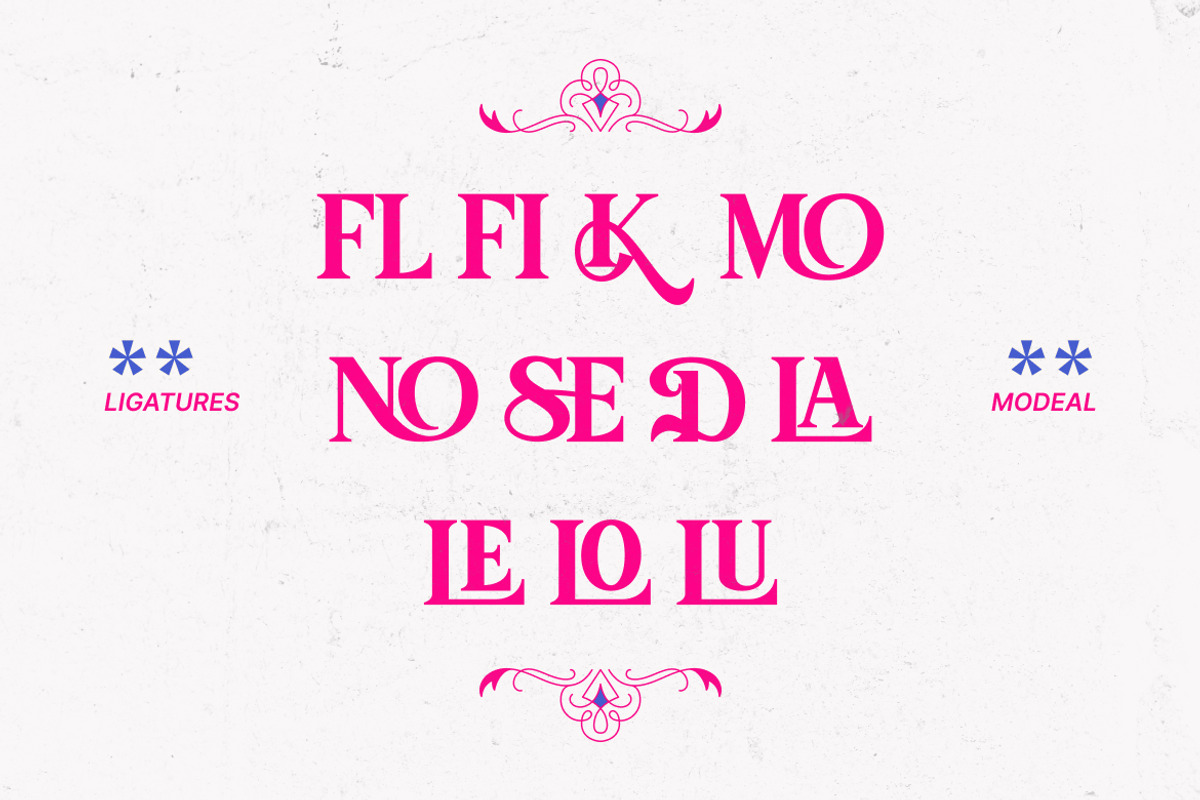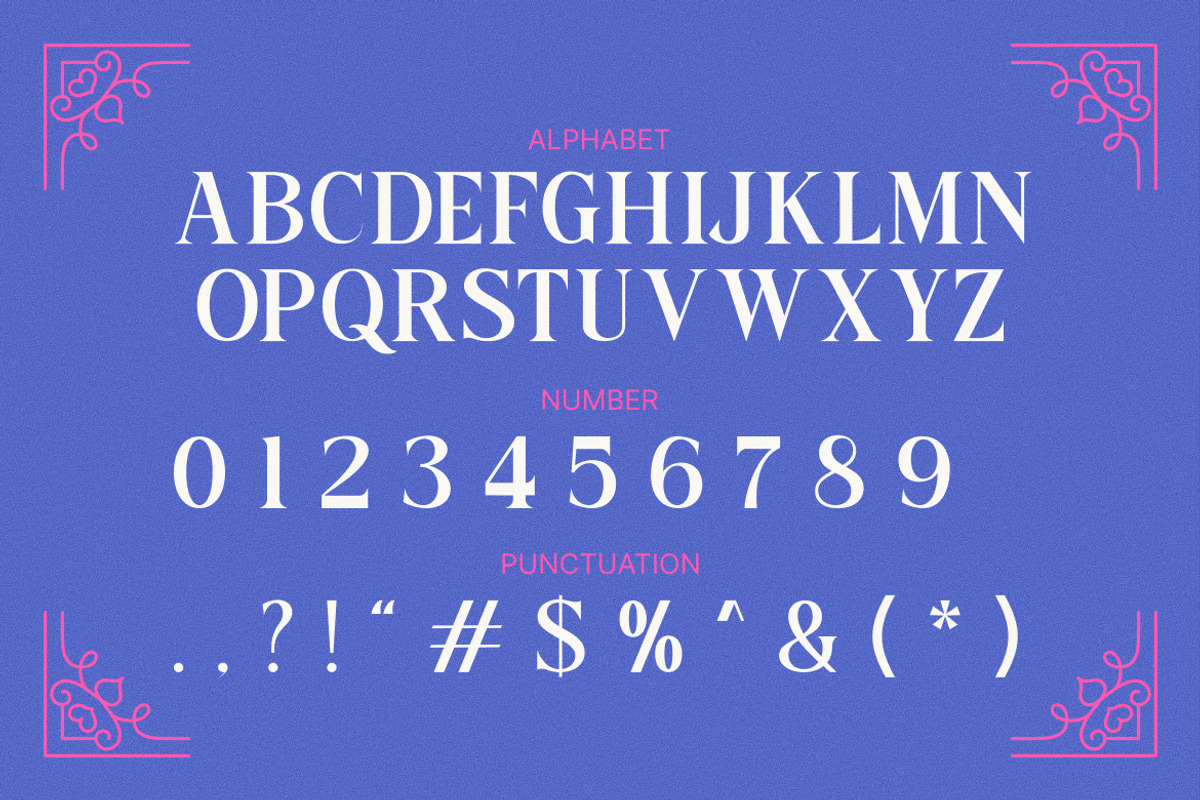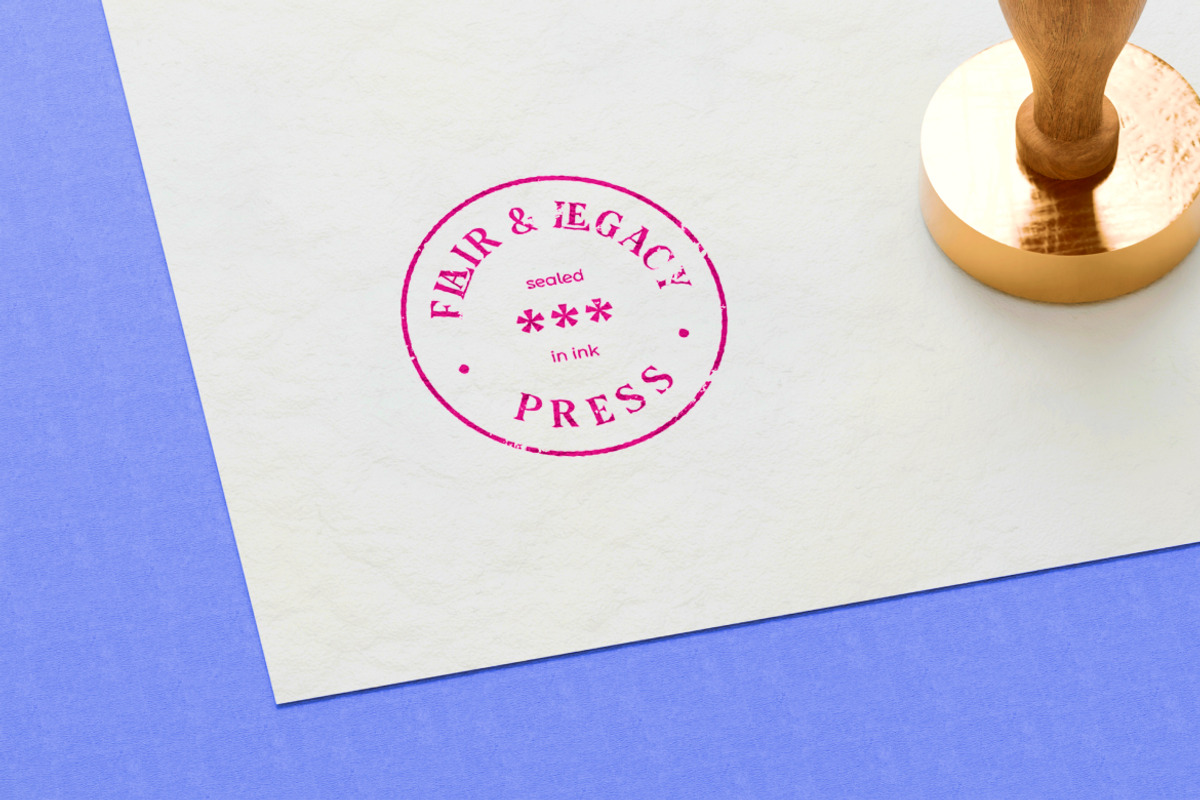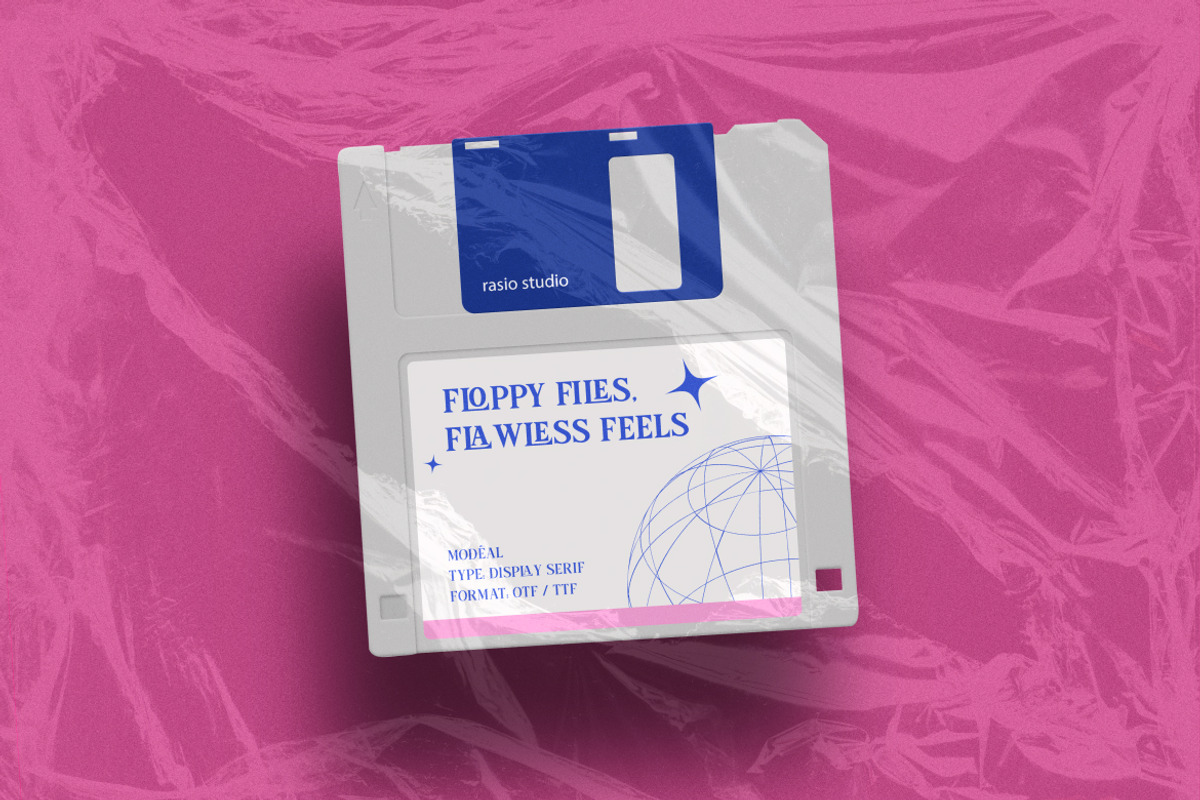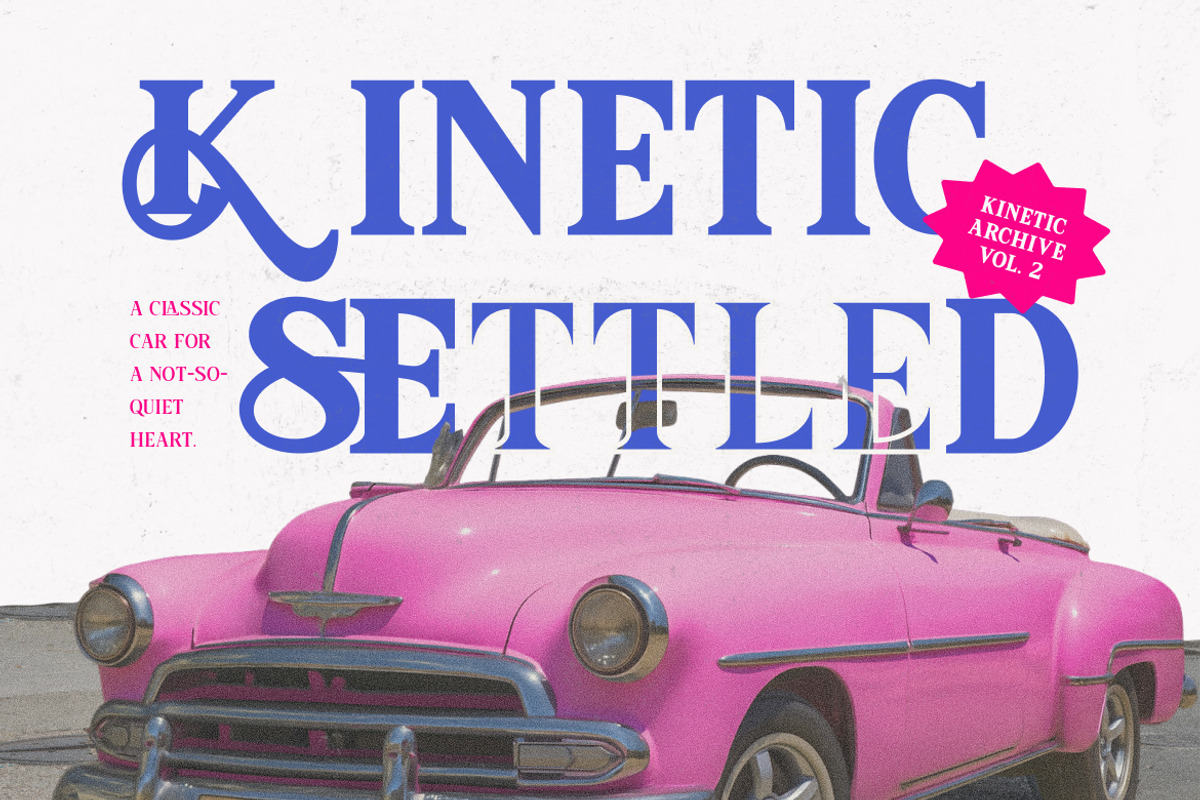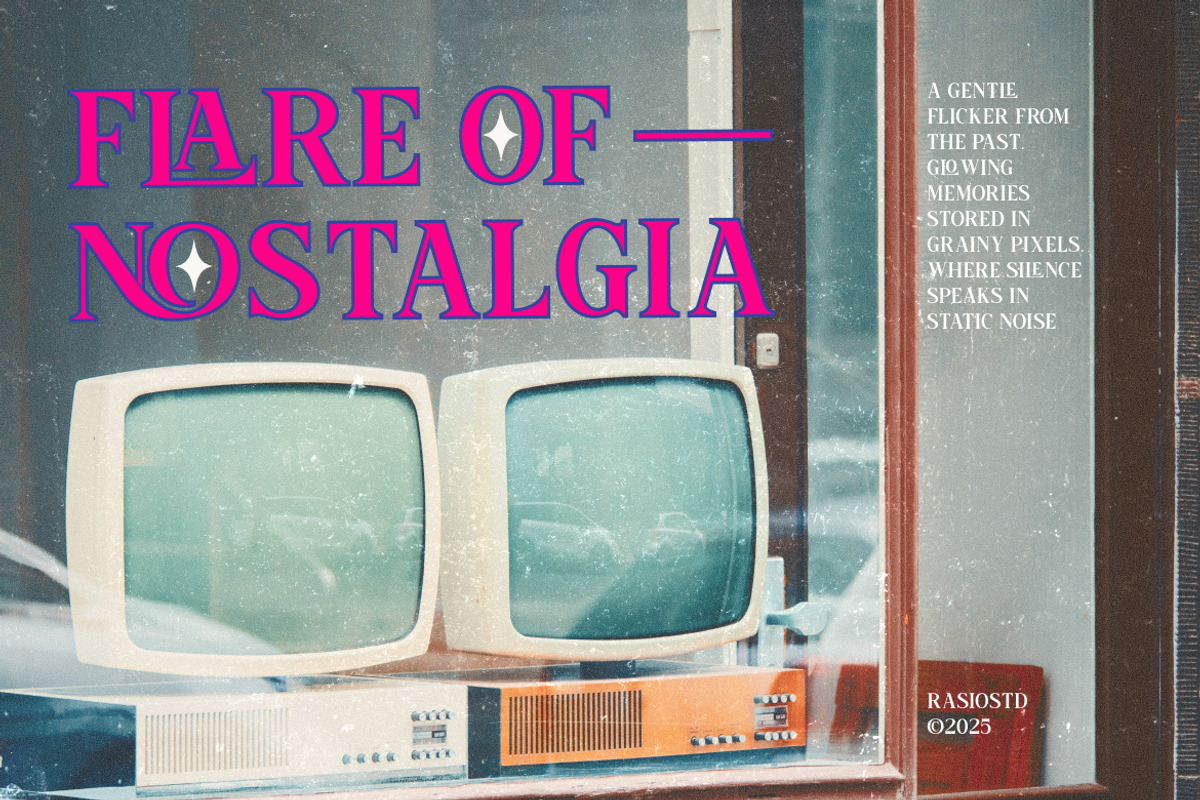
Modeal Modern Serif Display Font
Modeal is a modern serif display font designed with refined proportions, graceful contrast, and elegant details. It features clean uppercase and lowercase characters, balanced numerals, and carefully crafted punctuation for polished typography. The font includes stylistic alternates and ligatures that enhance visual rhythm and luxury appeal.
Modeal is designed for projects that require a refined and elegant visual identity, making it suitable for high-end branding, editorial layouts, fashion campaigns, premium packaging, and sophisticated digital presentations where typography plays a central role.
- Modern sans serif structure with clean, contemporary proportions
- Smooth geometric forms balanced with subtle organic curves
- Open counters and rounded details for enhanced readability
- Uniform stroke weight with stable vertical rhythm
- Optimized spacing for clear performance in headlines and interface layouts
- Brand identity systems with a modern, clean, and professional character
- UI/UX design for digital products, dashboards, and mobile applications
- Editorial layouts such as magazines, journals, and minimalist publications
- Product packaging and label design with a refined, contemporary look
- Social media graphics, presentations, and digital marketing assets
Modeal brings modern elegance to your designs through refined serif forms